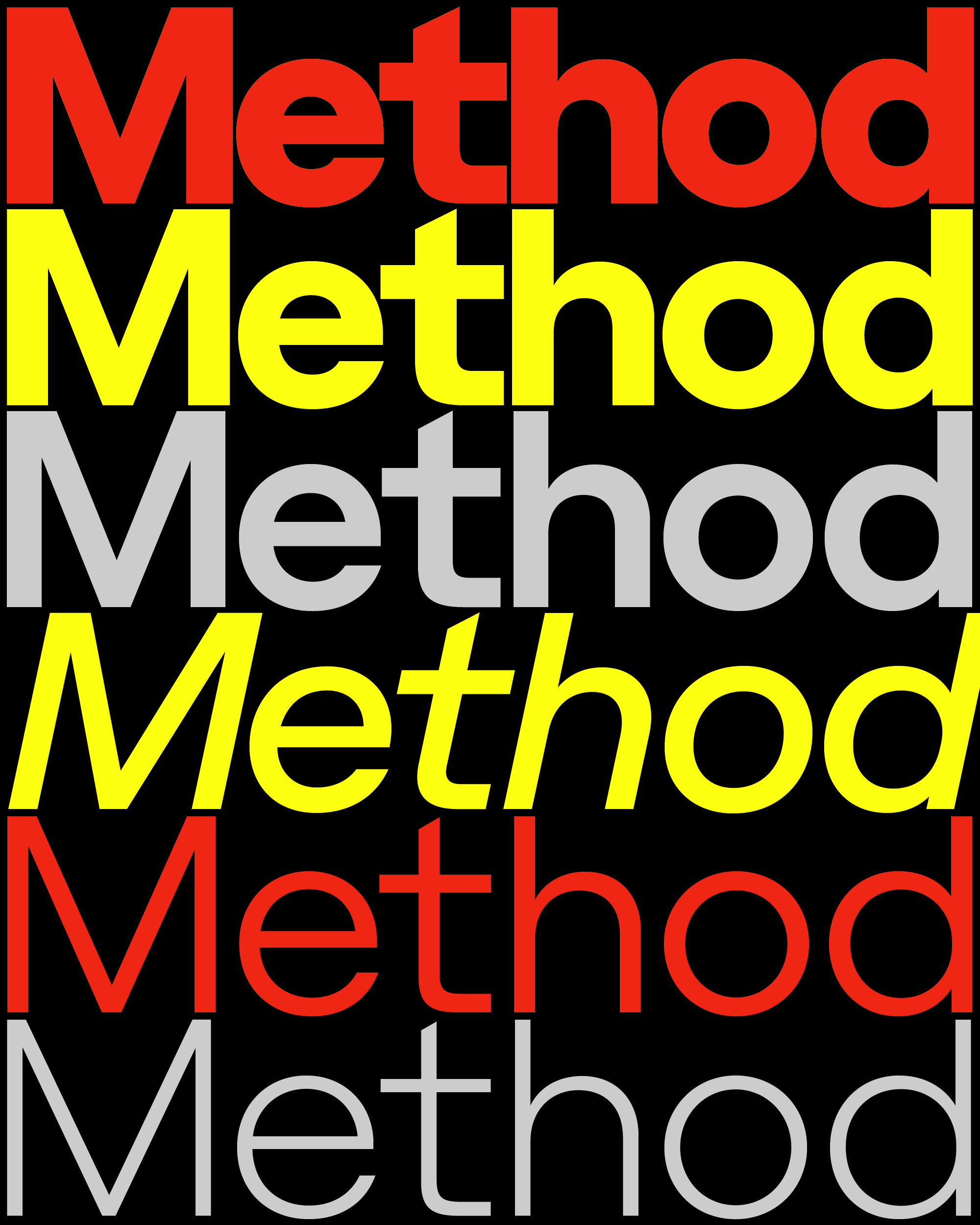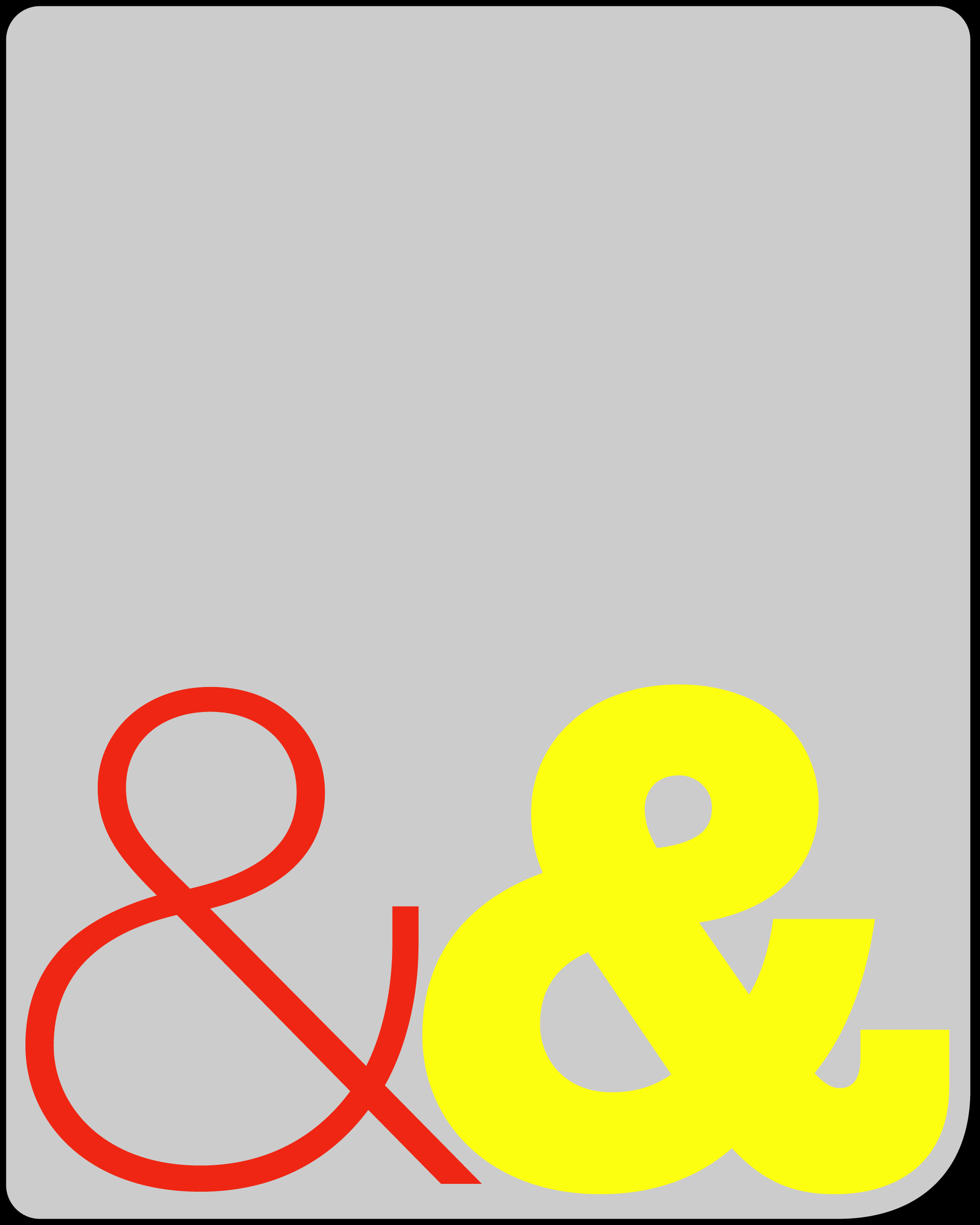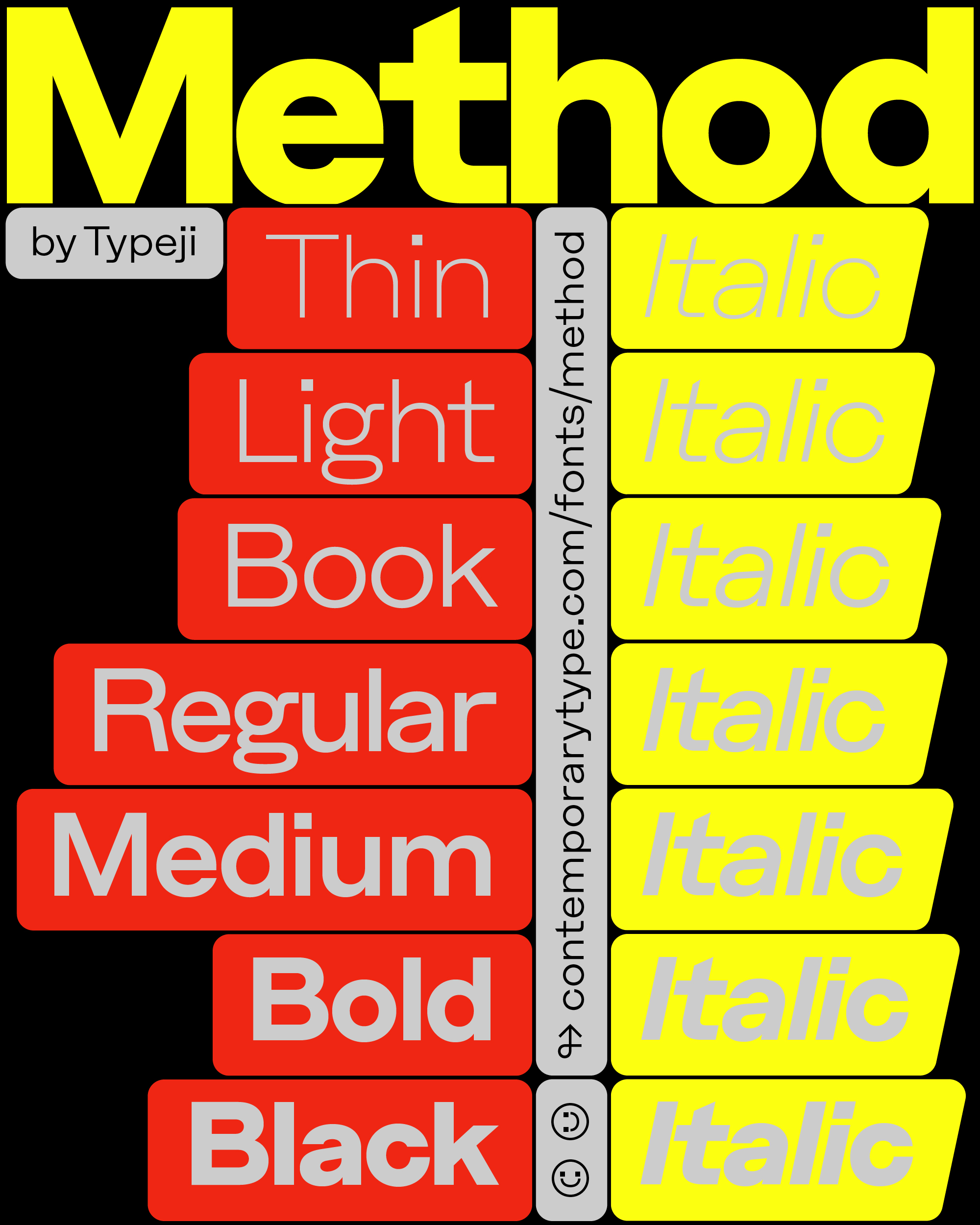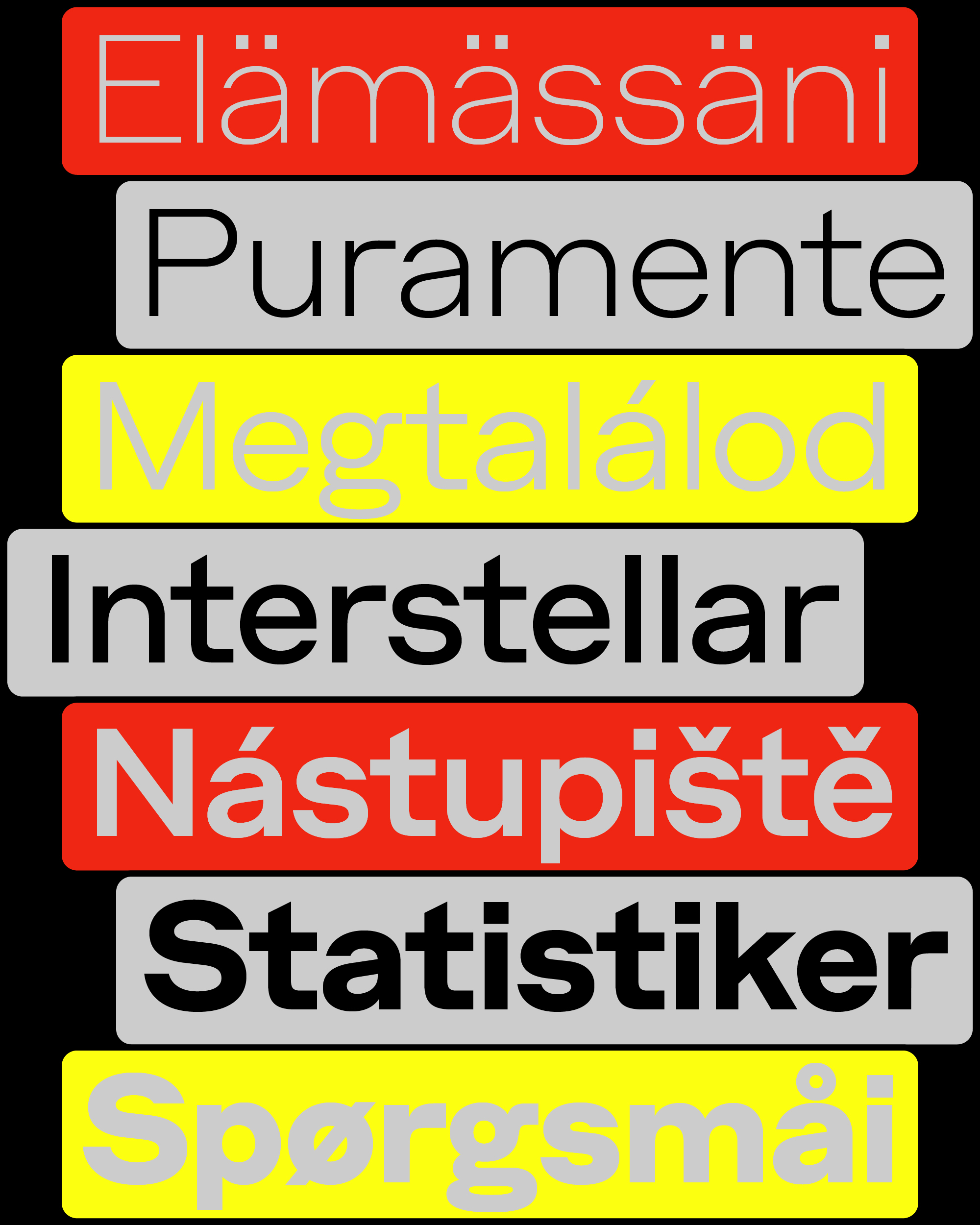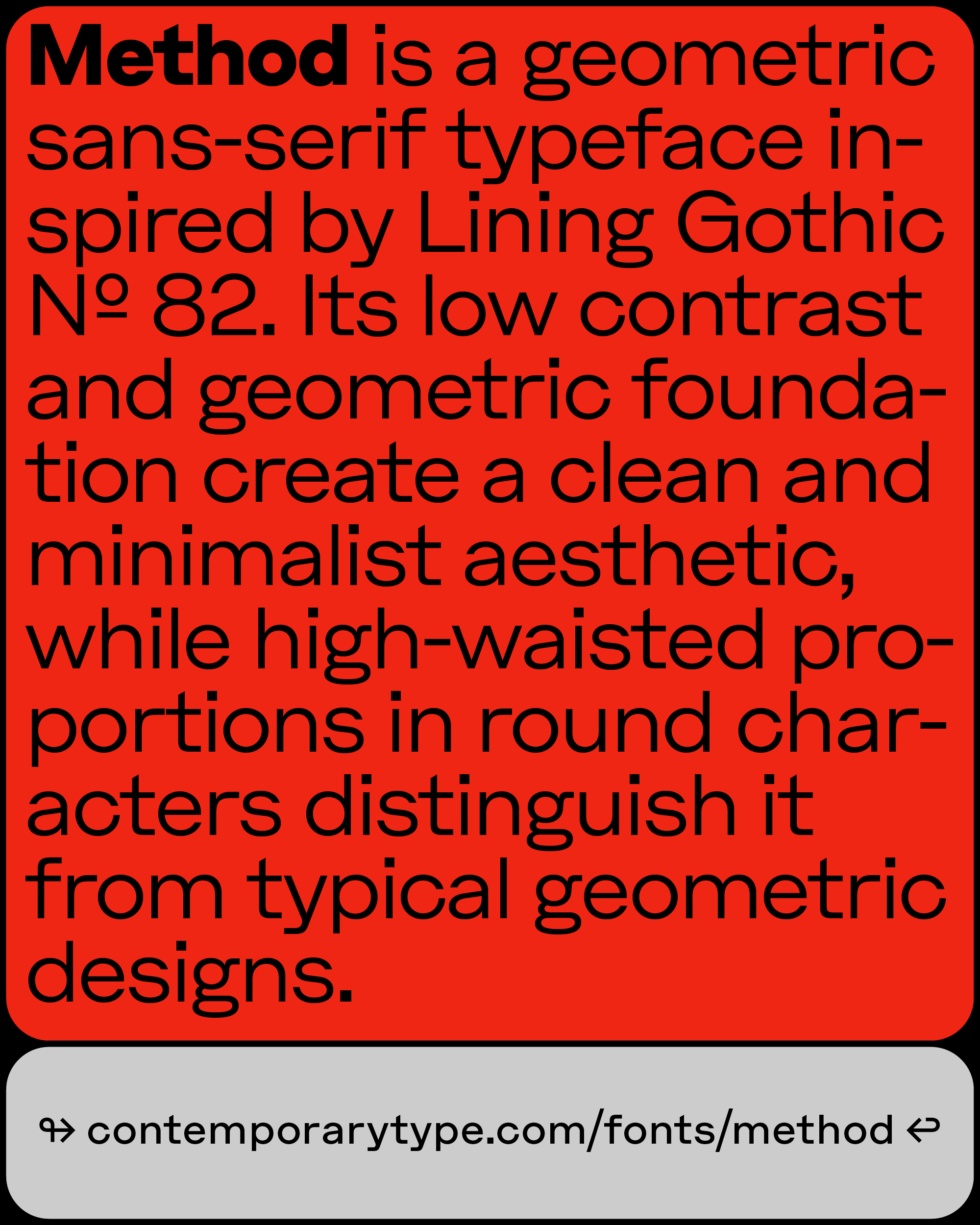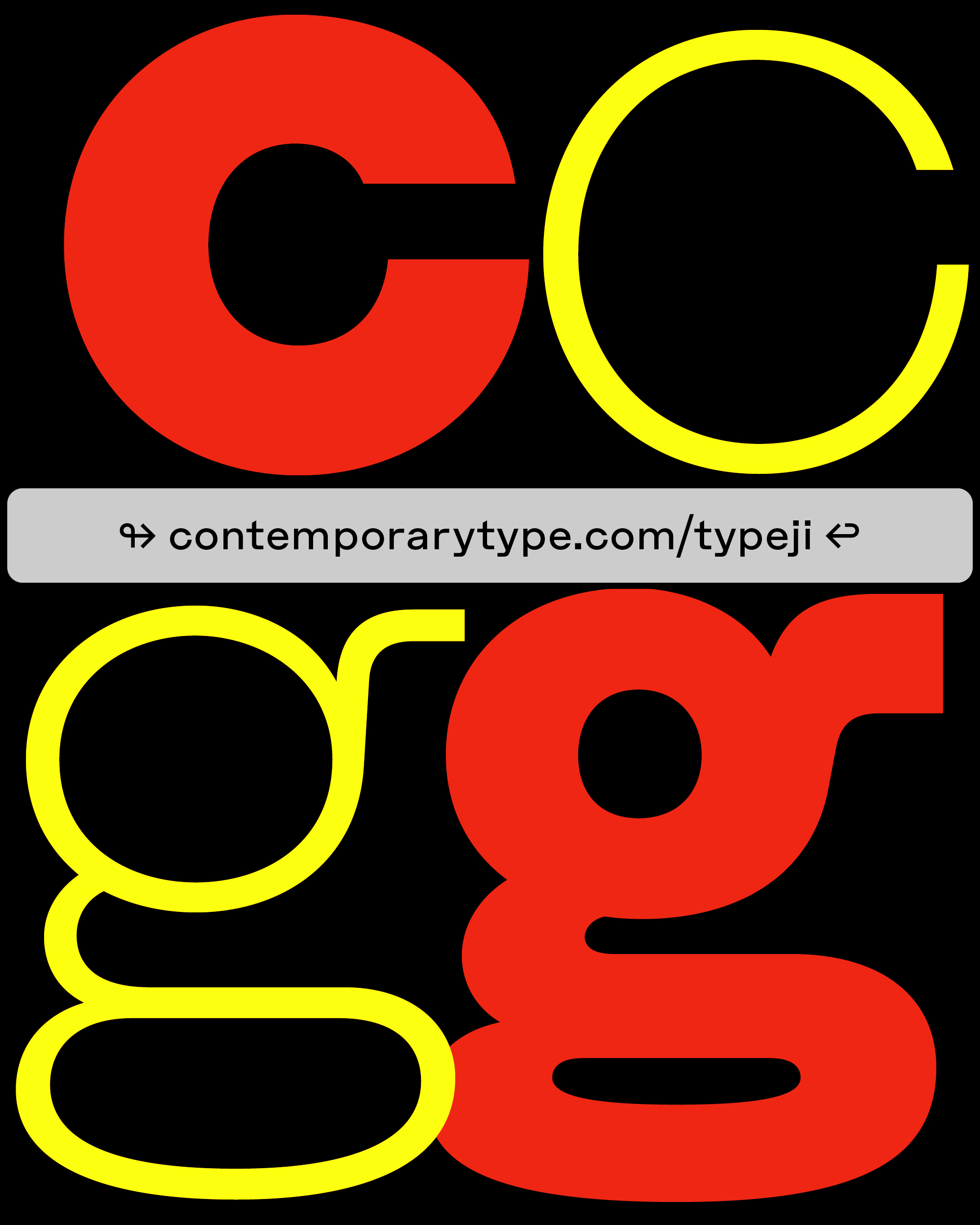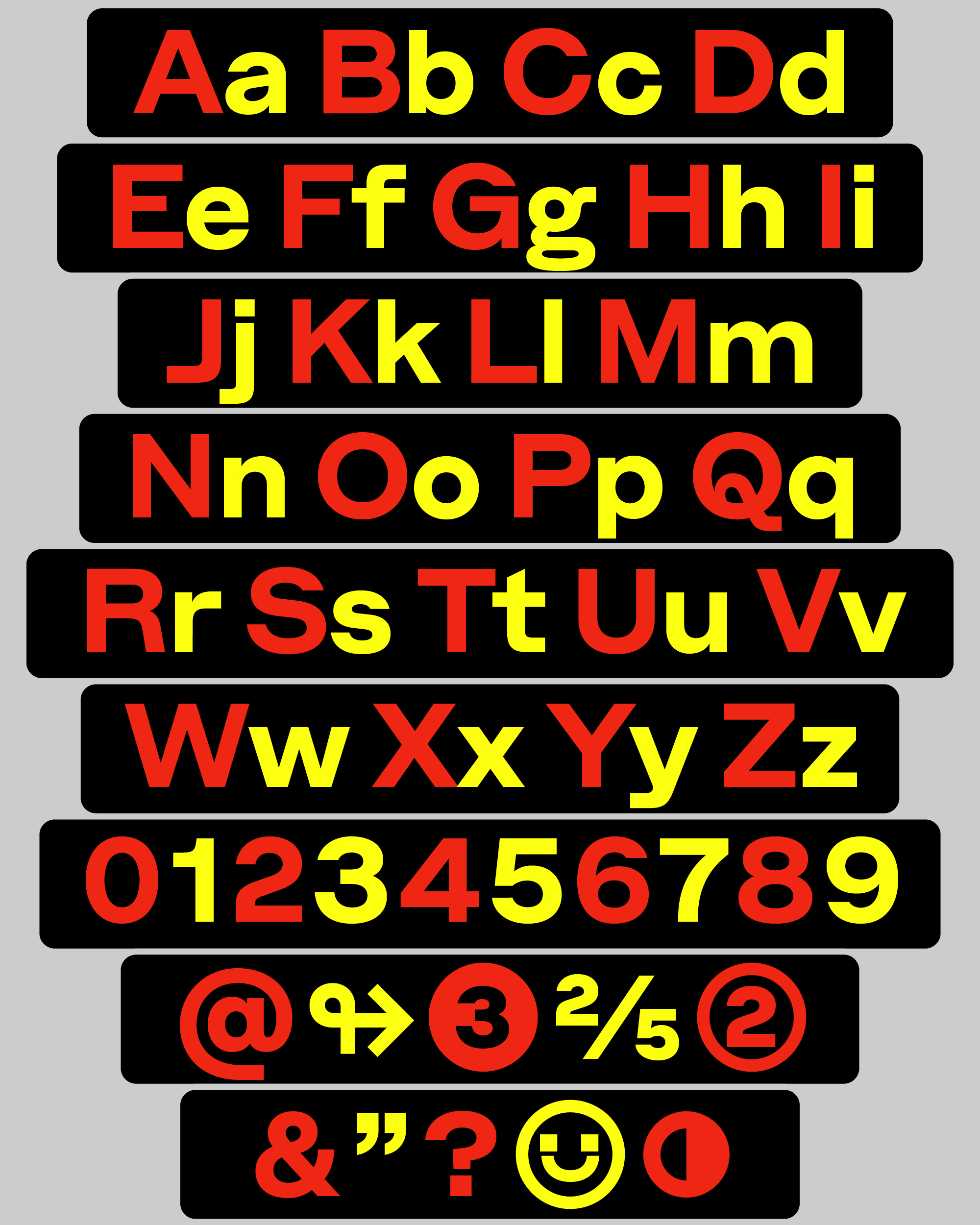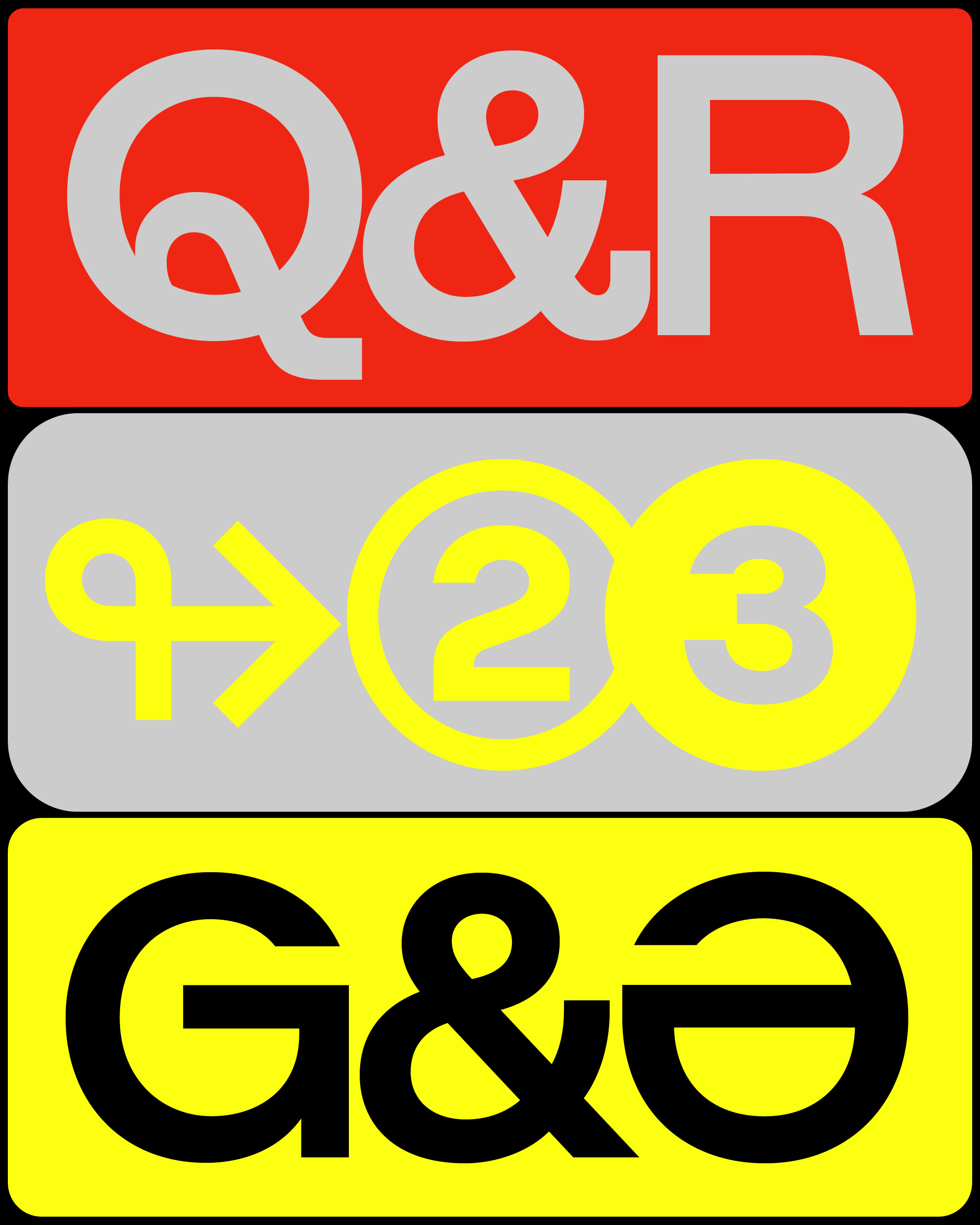
Method is a geometric sans-serif typeface inspired by Lining Gothic No.82. Its low contrast and geometric foundation create a clean, minimal aesthetic, while high-waisted proportions in round characters distinguish it from typical geometric designs. With its open counters and clean design, the overall appearance feels airy and fresh.
The journey began with an intriguing ‘g’ from Barnhart Bros. & Spindler’s Specimen No.9. This character’s unique signature—a compact rounded counter above a flat base, crowned by a long 90-degree ear. The design amplifies the original specimen’s geometric character, visible in the right-angled strokes of t, f, r, y, and j, while the near-perfect circles of o, b, d, p, and q reinforce its systematic approach.
Method’s high-waisted proportions appear throughout the family—not only in letters with counters and horizontal bars like B, P, R, E, F, and H, but also in round letters like C and S, where apertures sit above their visual center. This creates a cohesive high-waisted appearance across the family. The terminals of the rounds are cut straight horizontally, adding sharpness and character to letters with open counters, like C, G, S, a, c, s, 3, 6, and 9—becoming a distinctive feature of Method.
Originally based on Lining Gothic No.82’s Medium weight, Method has expanded into a comprehensive family spanning from Thin to Black weights, offering versatility for both text and display applications.